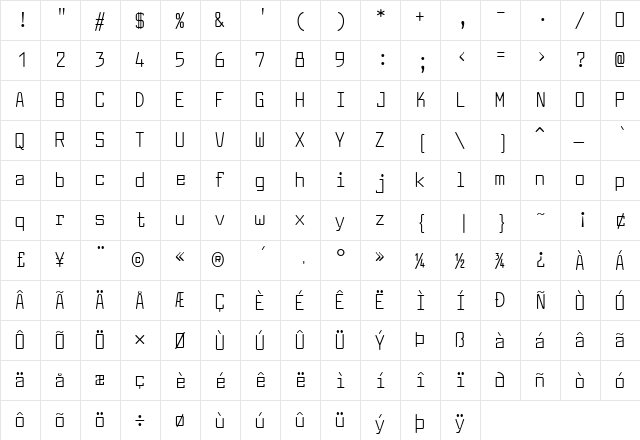
Larabiefont Condensed Regular
Design Context for Larabiefont Condensed Typeface
Larabiefont Condensed offers clean, dependable letterforms without strong stylistic allegiance, making it a practical choice for designers who need flexibility. The condensed width makes it efficient for tight spaces without sacrificing legibility.
Pro Tip: Use Larabiefont Condensed in both headline and body roles to test its range before committing to a single application.